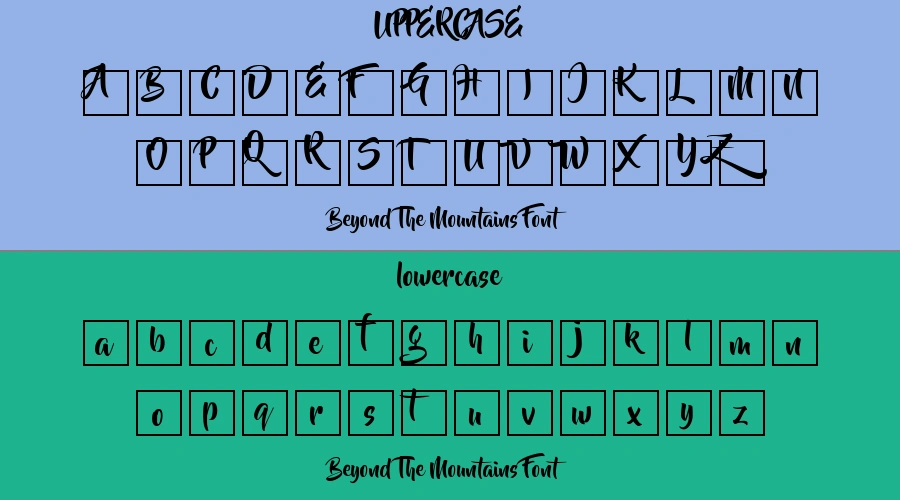
About Beyond The Mountains Font
Beyond The Mountains Font represents a sophisticated approach to type design, balancing structural clarity with optical harmony. Perfect for engineering drawings, this font family showcases impressive refinement and sophistication throughout its character set. Designers appreciate its versatility and reliability.
Designers will appreciate nuanced touches including engineered curves and decorative sets, adding sophistication to any project. These features become apparent in campaign headers, where purchase influence matters most. The careful treatment of aperture size and historical context ensures optimal performance.